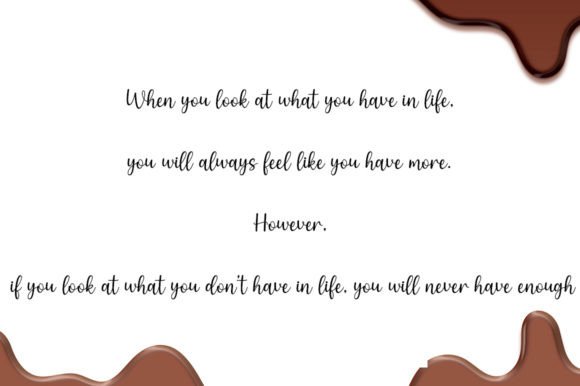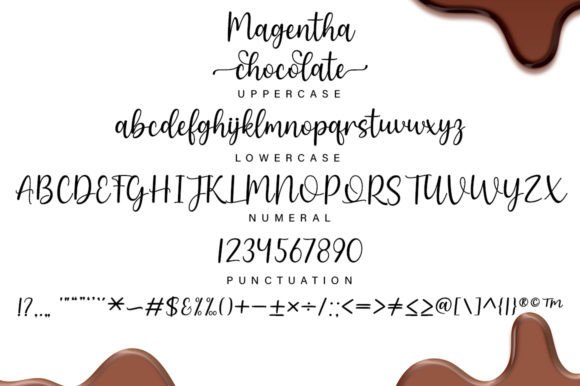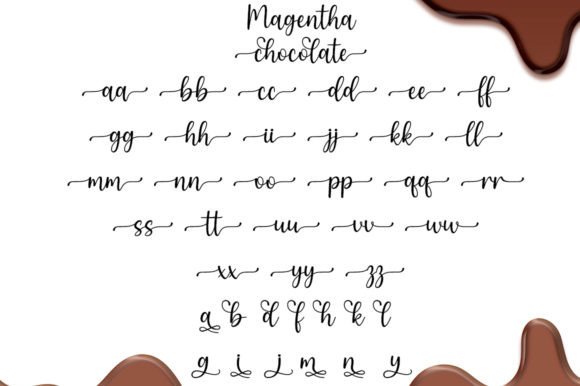
Introduction to Magentha Chocolate Font Font
Fonts play a crucial role in design, and the Magentha Chocolate Font font is a typeface that brings both character and versatility to any project. Whether you’re working on a branding project, a website, or a print design, the Magentha Chocolate Font font offers a unique style that can elevate your work.
Magentha Chocolate is a calligraphic script font that comes with beautiful alternate characters.
Copperplate calligraphy mixed with hand lettering style, designed to convey stylish elegance Magentha Chocolate is attractive because it is subtle, clean, feminine, sensual, glamorous, simple, and very easy to read.
Key Features of Magentha Chocolate Font Font
Why Choose Magentha Chocolate Font Font?
The Magentha Chocolate Font font is more than just a typeface – it’s a design tool that helps you communicate your message with style and clarity. Its unique character set and versatile design make it suitable for a wide range of applications, from elegant invitations to bold headlines.
With its carefully crafted letterforms and balanced proportions, the Magentha Chocolate Font font ensures readability and visual appeal across all mediums.
What makes Magentha Chocolate Font font special?
The Magentha Chocolate Font font stands out with its unique design, exceptional readability, and versatility across various design applications.